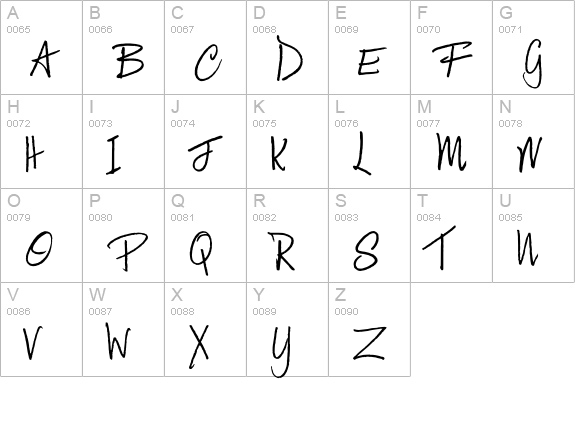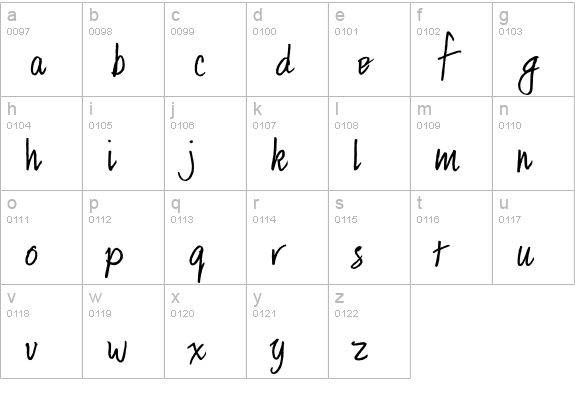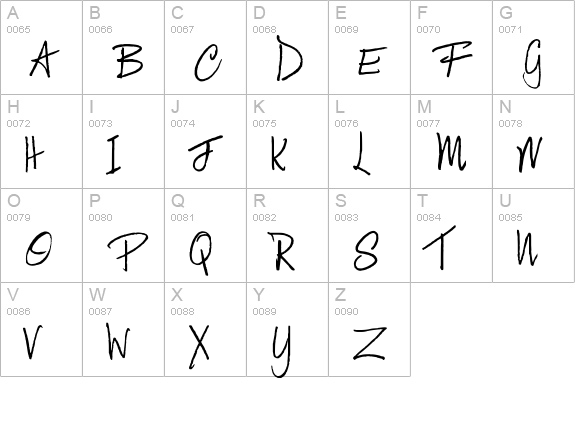
CatercareScript-Regular Font Details
CatercareScript-Regular is the standard, neutral variant in the CatercareScript typeface family \xE2\x80\x94 well suited to general body text, paragraphs, and standard typographic work.
CatercareScript-Regular is an elegant and versatile font that exudes sophistication and charm. With its fluid and graceful curves, this font is perfect for adding a touch of elegance to any design project. Whether you're creating wedding invitations, branding materials, or decorative elements, CatercareScript-Regular is sure to elevate your designs to the next level. The best part? CatercareScript-Regular is available for free download at FontsMarket.com. This means you can easily access this beautiful font and incorporate it into your projects without any cost. Don't miss out on this amazing opportunity to enhance your designs with the timeless beauty of CatercareScript-Regular. Download it today and bring a touch of sophistication to your creations.